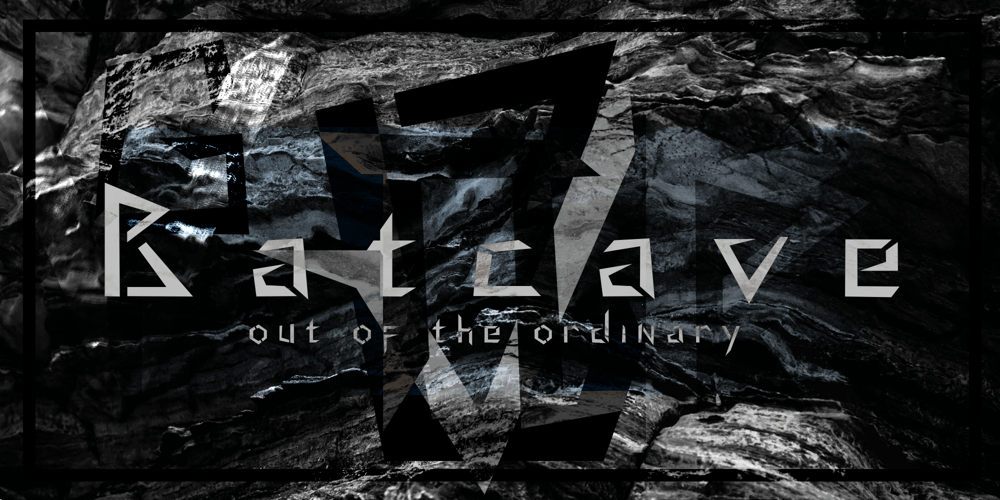
Batcave
Batcave font
Batcave Font Family was designed by Tom Raaijmakers and published by Neoglyph Studio. Batcave contains 1 styles and family package options. A futuristic cyberpunk display font design.Ideal for: music advertising comic books videogames book cover design toy package design